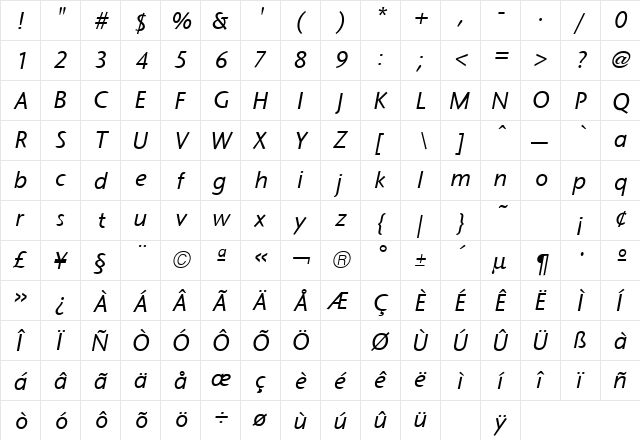
Stone Sans Italic
Design Context for Stone Sans Typeface
Stone Sans is a composed and adaptable typeface that performs quietly and consistently across a wide range of design contexts. Its italic angle brings a sense of urgency and motion to the letterforms.
Pro Tip: Try Stone Sans for annotation and caption copy alongside an upright companion — the contrast in angle creates a dynamic but ordered typographic system.